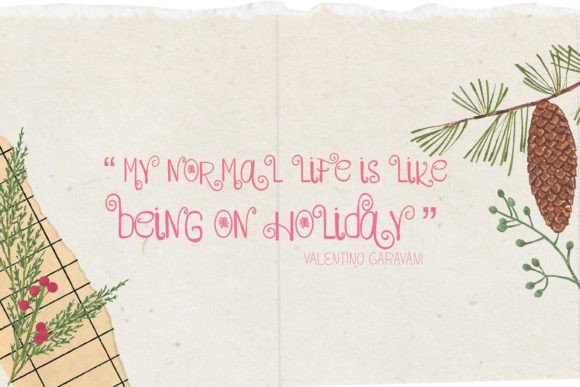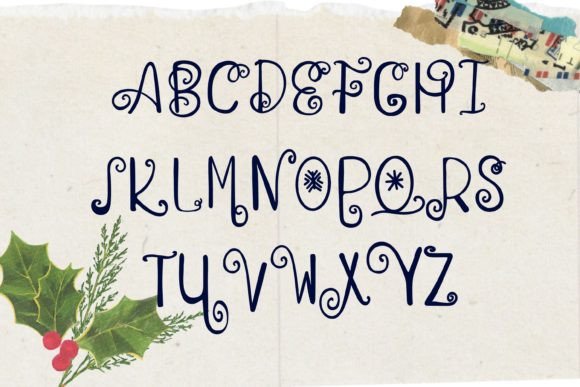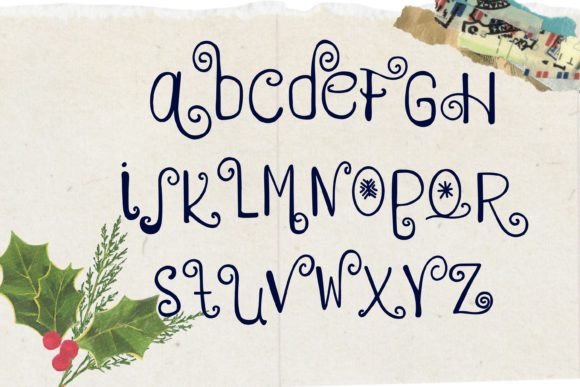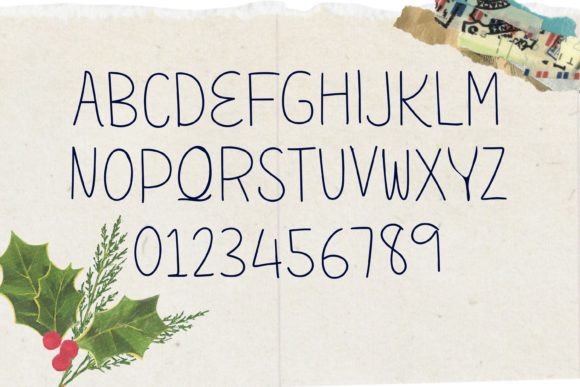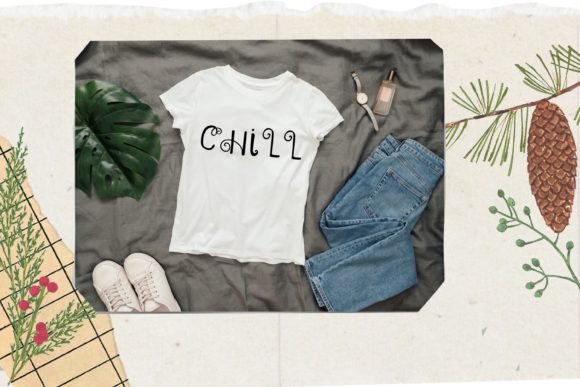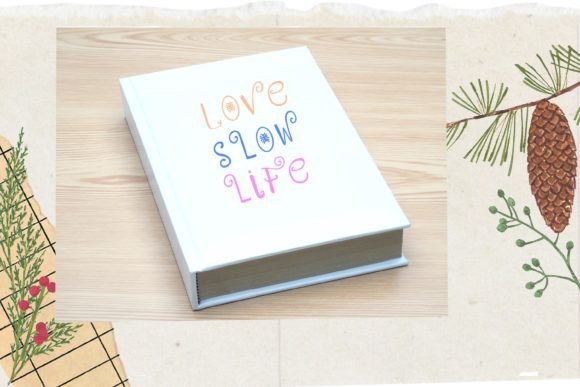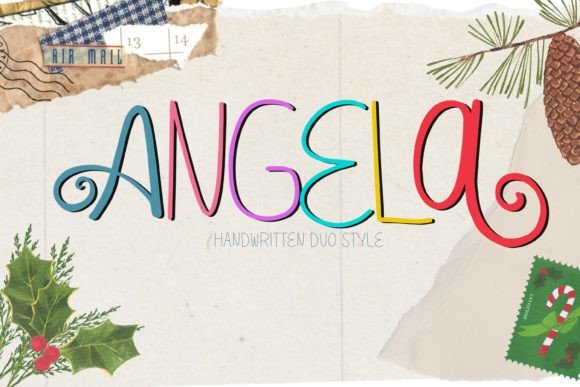
The Quest for the Perfect Font: Discovering Angela Duo
Ah, the eternal search for the perfect font! I recall a particularly frustrating design moment when I was working on a project for a client who wanted a font that was both playful and professional. I scoured the internet, tried out countless fonts, but nothing seemed quite right. That was until I stumbled upon Angela Duo, a charming handwritten font duo that has since become a staple in my design toolkit.
What is Angela Duo Font?
Angela Duo is a delightful font duo consisting of a regular and curly version, designed to bring a personal and realistic feel to your designs. Its authentic look and feel make it perfect for a wide range of projects, from branding and advertising to crafting and DIY tutorials.
An Honest Review of Angela Duo
What I Love About Angela Duo ✨
- ✅ The font’s friendly and approachable vibe makes it perfect for designs that require a personal touch.
- ✅ The regular and curly versions offer a nice contrast and can be used together or separately.
- ✅ The font is highly legible, even at smaller sizes.
- ✅ Angela Duo comes with a range of OpenType features, glyphs, and stylistic alternates, making it versatile and customizable.
While Angela Duo is an excellent font, it’s not without its quirks. For example:
- ⚠️ Some of the curly versions’ swashes can be a bit too elaborate for certain designs.
- ⚠️ The font may not be suitable for very formal or corporate designs, as it’s inherently playful.
The Story Behind Angela Duo
Angela Duo was designed with the intention of creating a font that was both fun and authentic. The designer aimed to capture the imperfections and quirks of handwritten text, making it perfect for designs that require a personal touch.
| Author | PJ Fonttein |
Q: What type of designs is Angela Duo best suited for?
A: Angela Duo is versatile and can be used for a wide range of designs, including branding, advertising, crafting, and DIY tutorials.